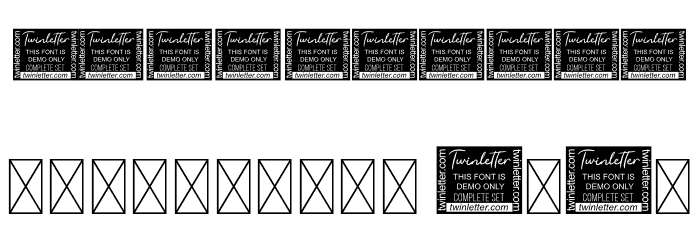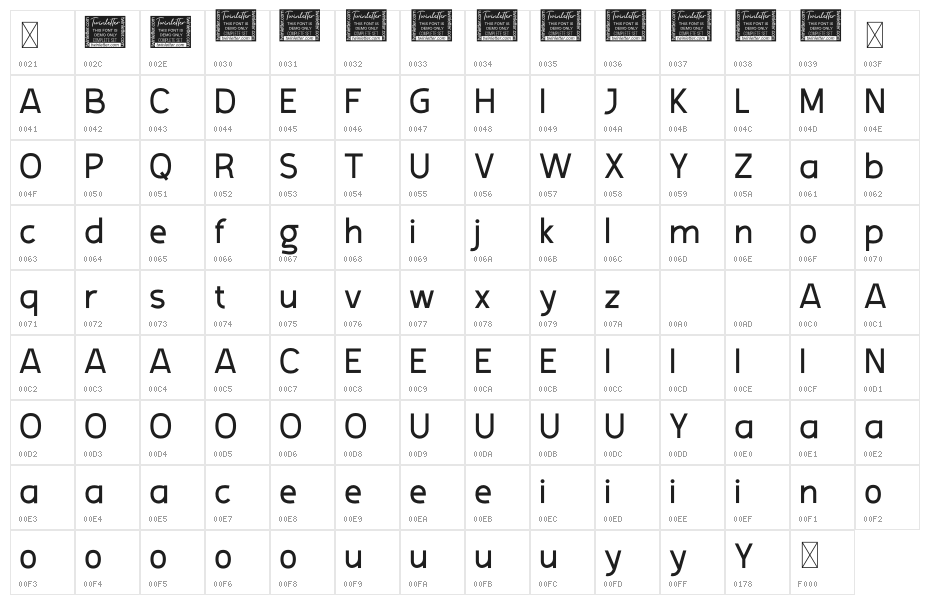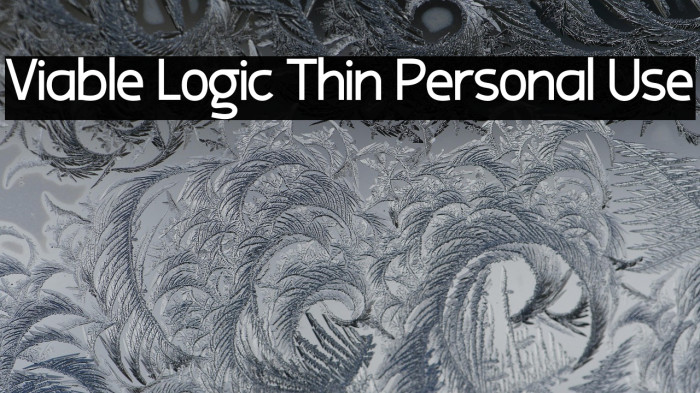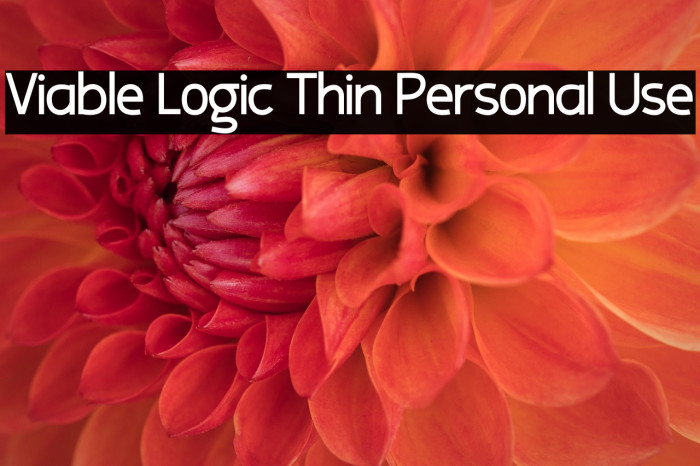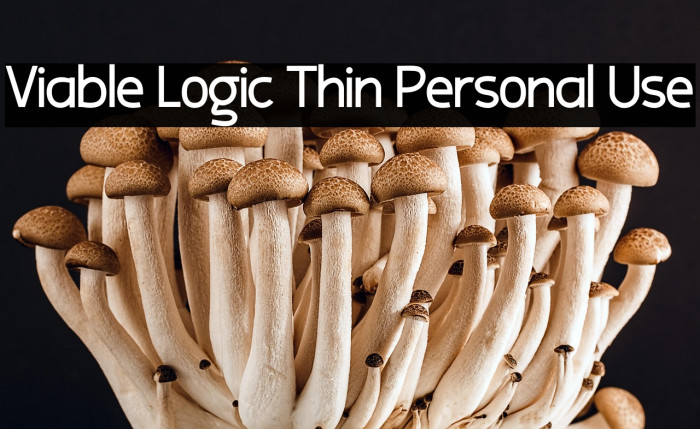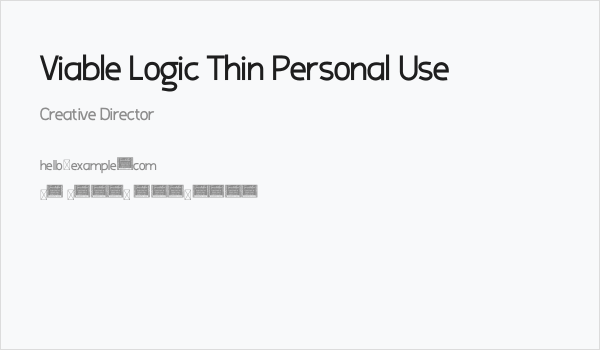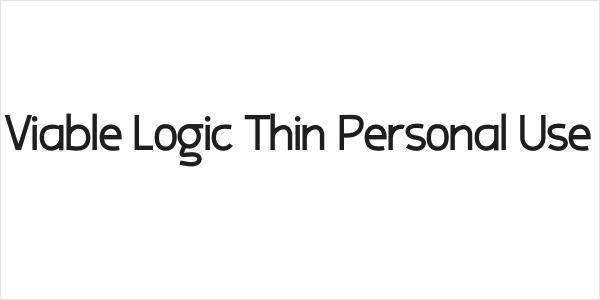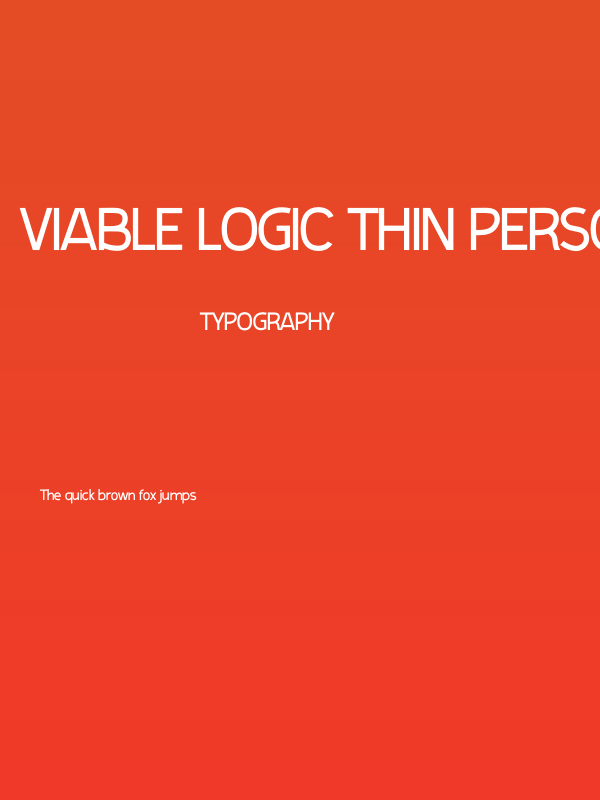
Viable Logic Thin Personal Use Font
Viable Logic Thin Personal Use Description
This font features a clean and modern design with a thin, geometric structure. The characters are evenly spaced, providing a balanced and harmonious appearance. The uppercase letters are bold and striking, while the lowercase letters maintain a consistent flow with rounded edges. The font's simplicity and clarity make it highly legible, suitable for various design applications. Its contemporary style is ideal for projects that require a sleek and professional look.
| Proposed Projects | Ideal for branding, advertising, digital media, and editorial design where a modern and professional aesthetic is desired. |